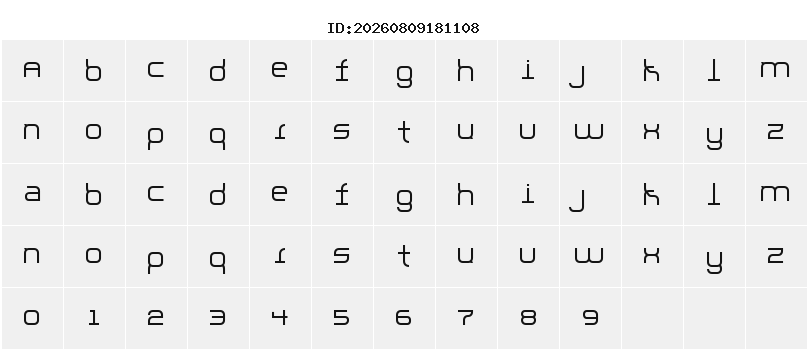
• Font Name: Parallello
• Full Font Name: Parallello
• Designer: Espen Kvalheim
About Parallello.ttf
Parallello.ttf is a modern, elegant sans-serif font designed for ultimate readability and visual harmony. Perfect for branding, headlines, web design, and print materials.